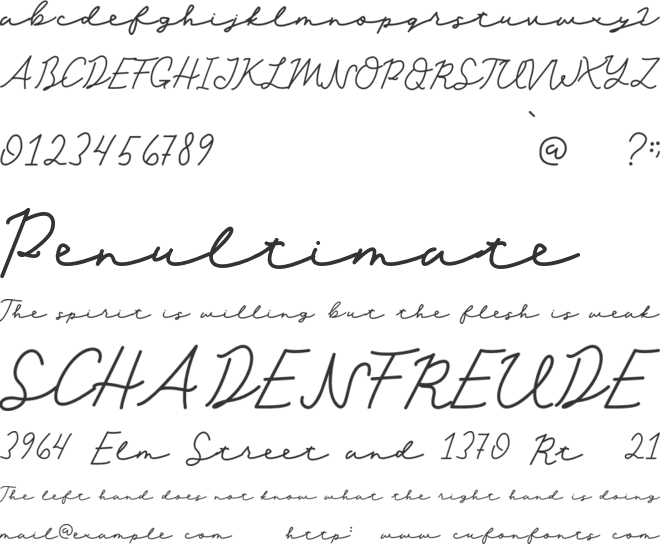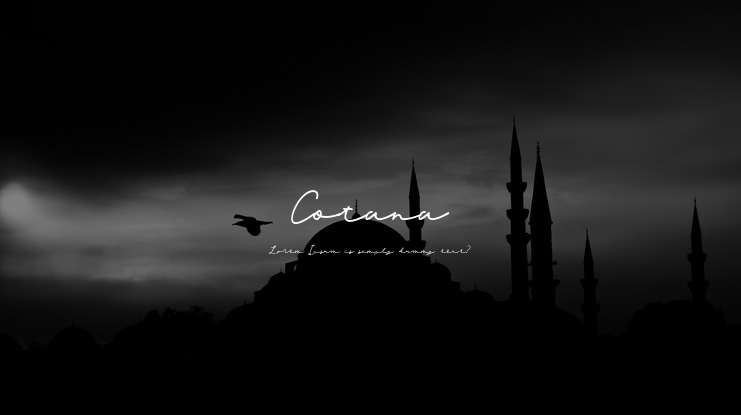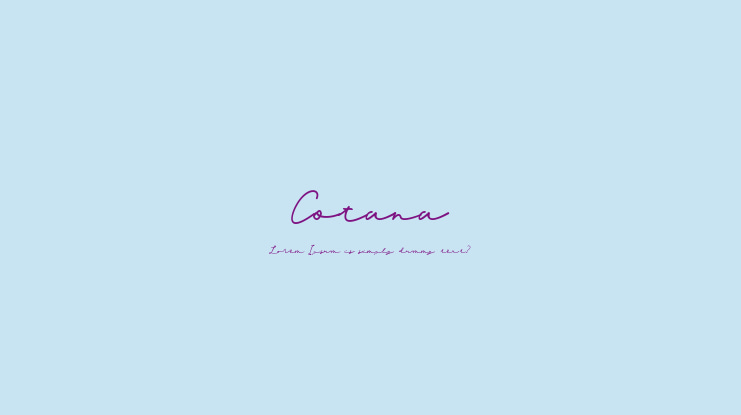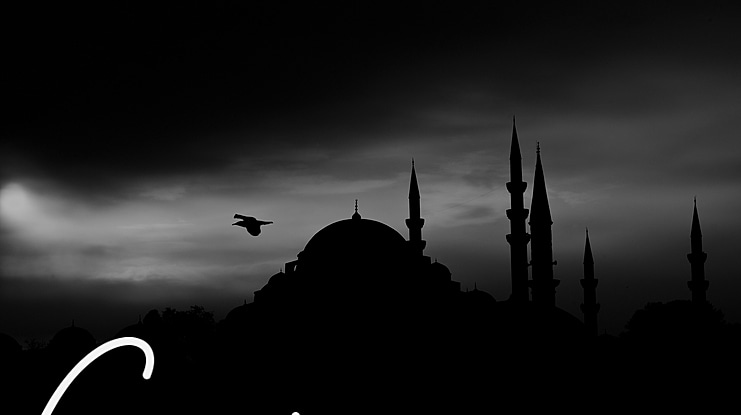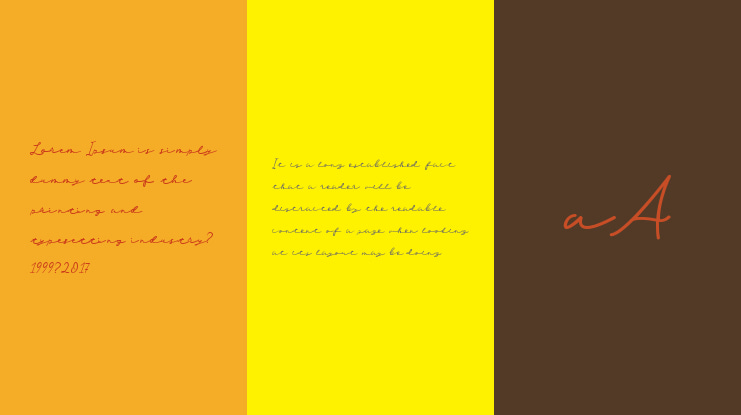
Cotana Font Family
rangga ilyasa
Zula Cotana is duo font that have urban and modern feeling also give nice vibe to your project. comes with script and sans that perfect paired each other and also with bonus logo that can you customize.